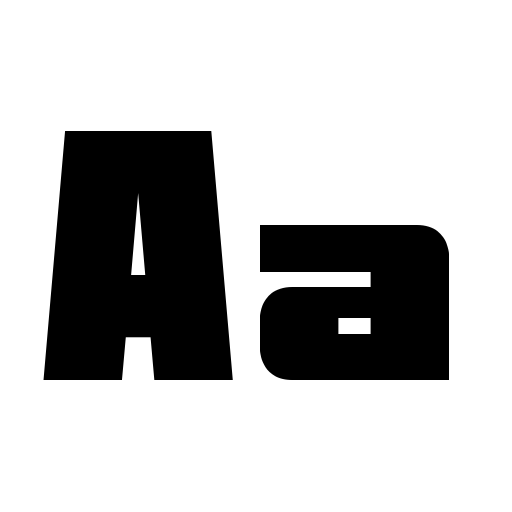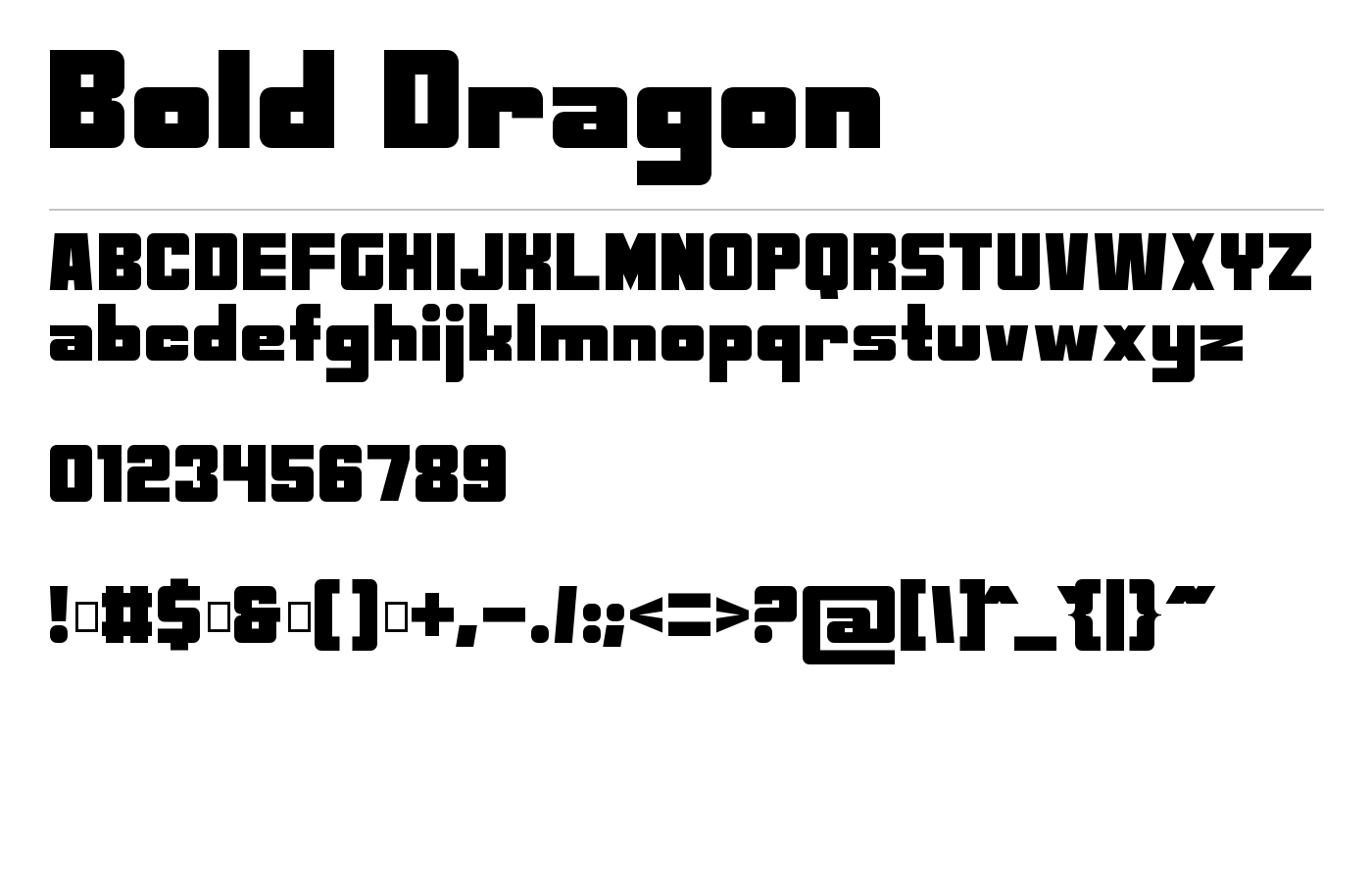
Bold Dragon is a heavy, geometric sans serif font characterized by its blocky, squared shapes and uniform stroke weight, giving it a strong and industrial feel. With its bold weight, tight spacing, and high x-height, it works especially well in headlines, logos, and branding that needs to convey power, modernity, and impact. This font suits projects aiming for a bold, no-nonsense style, such as tech, gaming, or urban-themed designs.
Bold Dragon Font
About Bold Dragon Font